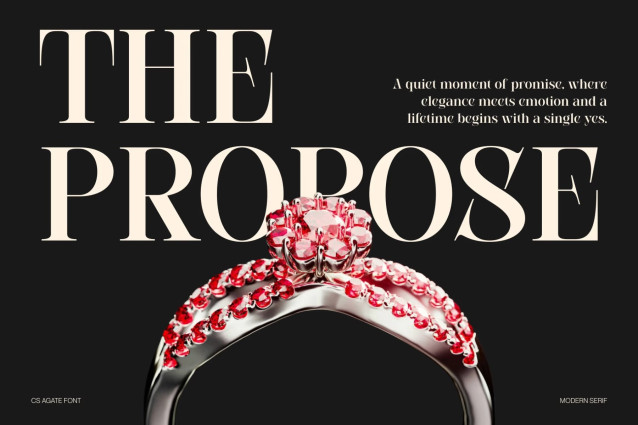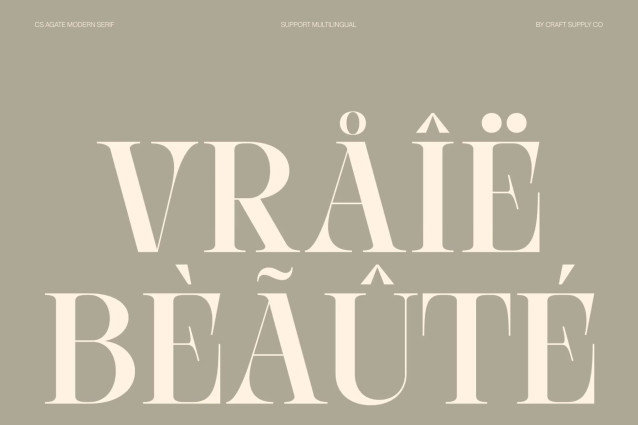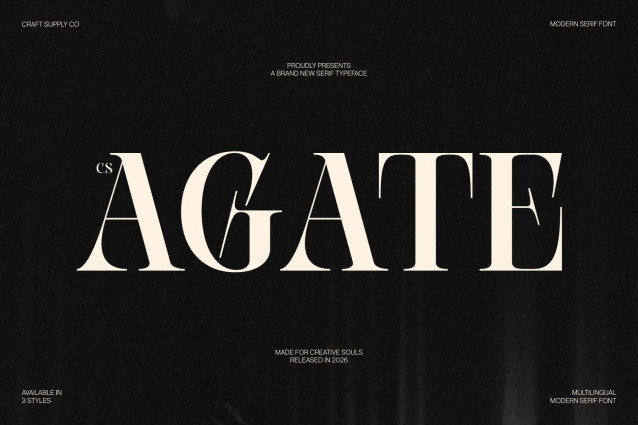
CS Agate – Modern Serif Font
CS Agate – Modern Serif Font: Where Sharp Elegance Meets Contemporary Luxury
Sharp Angles with Elegant Contrast
This is a modern serif font that combines sharp angles, sleek stroke contrasts, and elongated serifs to create a sophisticated and contemporary visual identity. Its refined construction balances precision with elegance, resulting in letterforms that feel graceful, confident, and effortlessly stylish. Every character is designed to convey professionalism while maintaining a distinctive luxury appeal.
Contemporary Design with Timeless Character
This font offers a modern interpretation of classic serif typography. The contrast between delicate strokes and bold structural elements creates depth and refinement, allowing the font to stand out in premium visual compositions. Its timeless aesthetic makes it equally suited for editorial design and upscale branding.